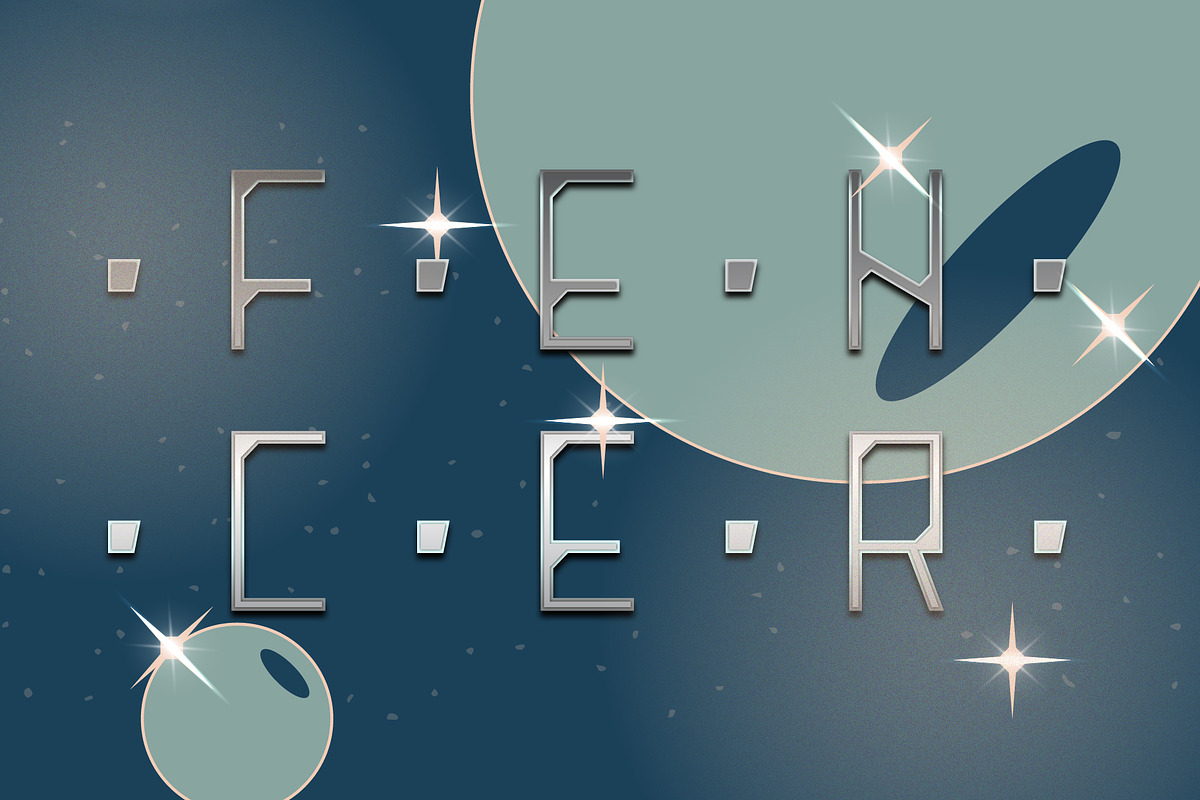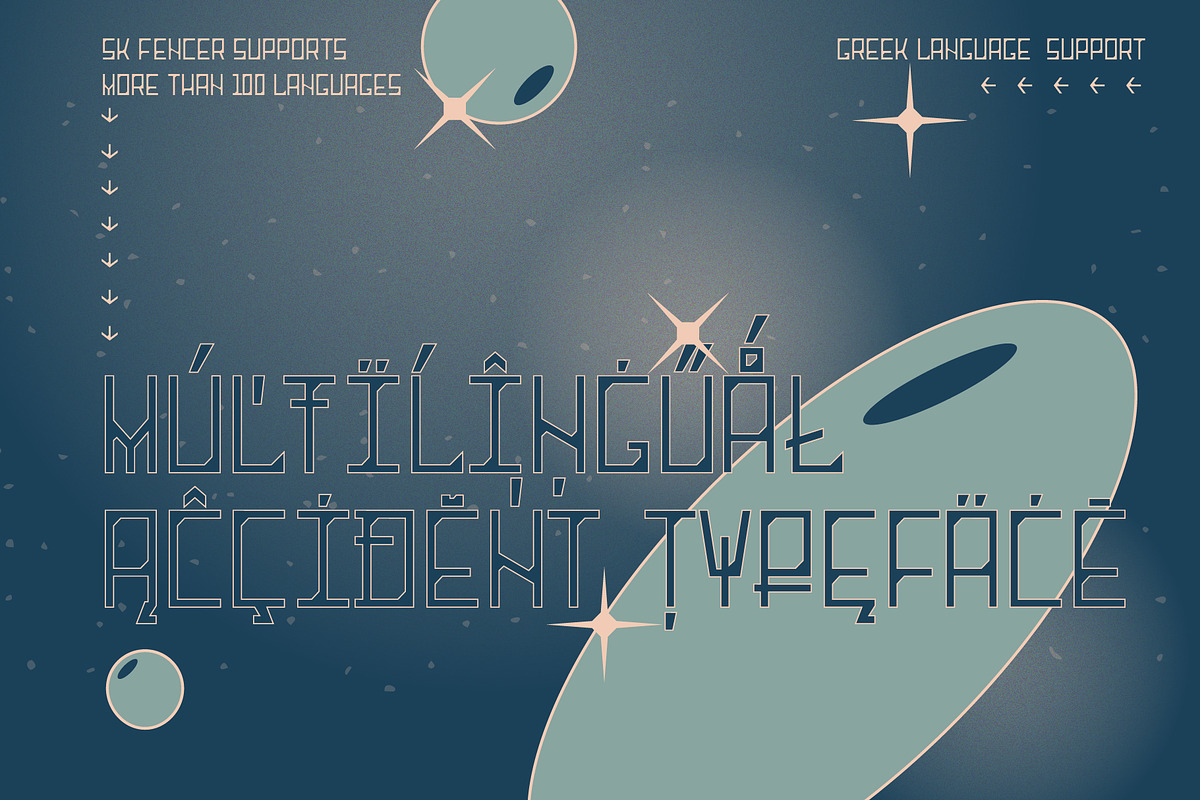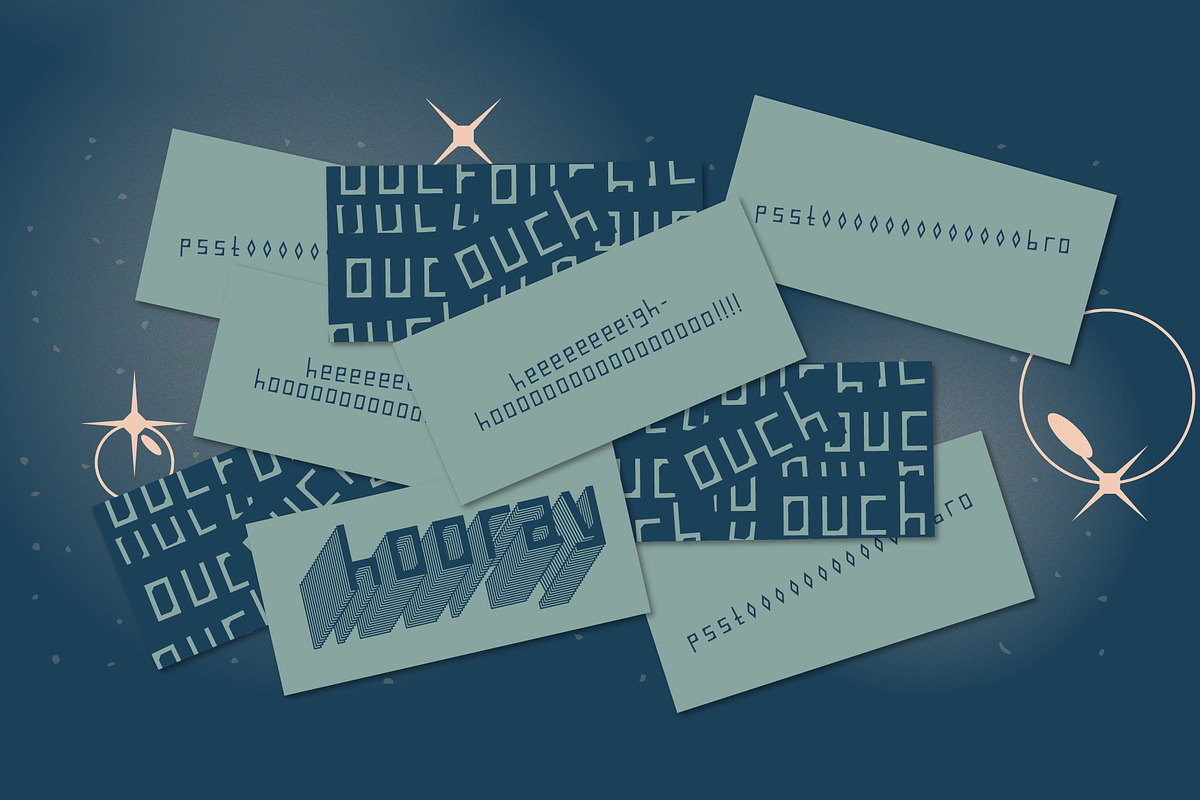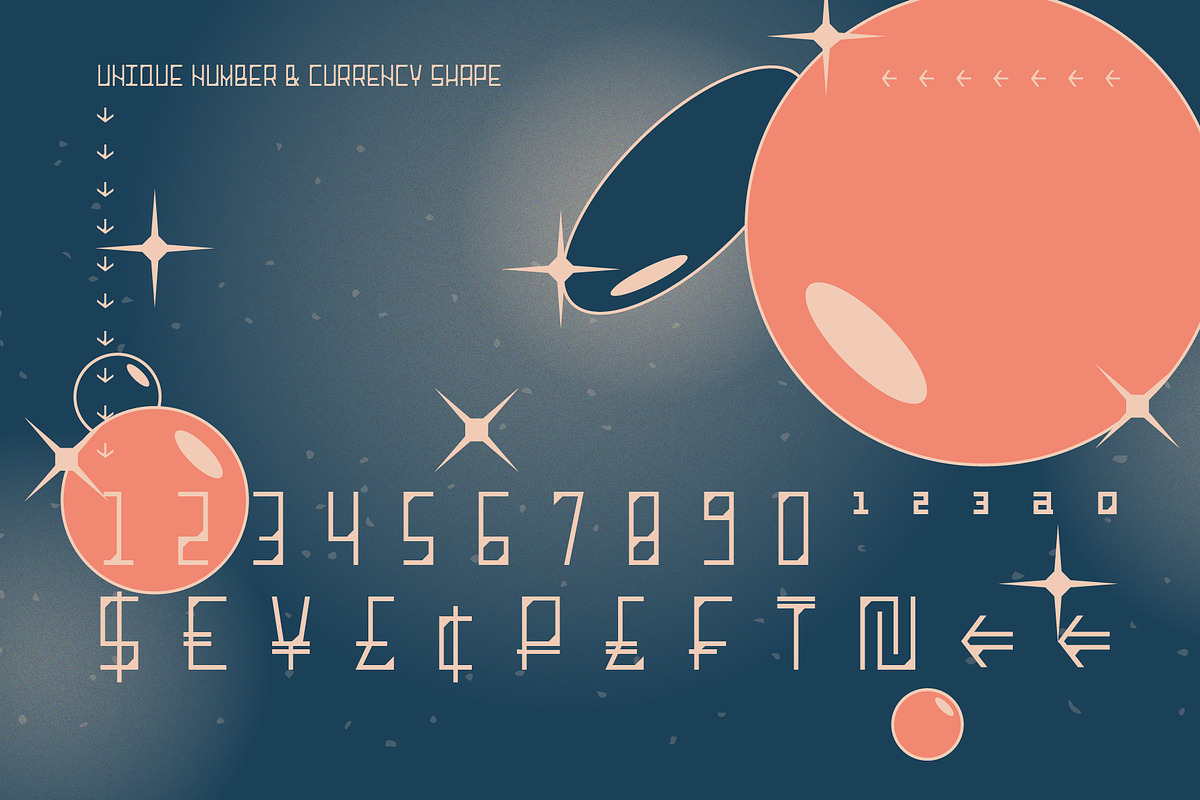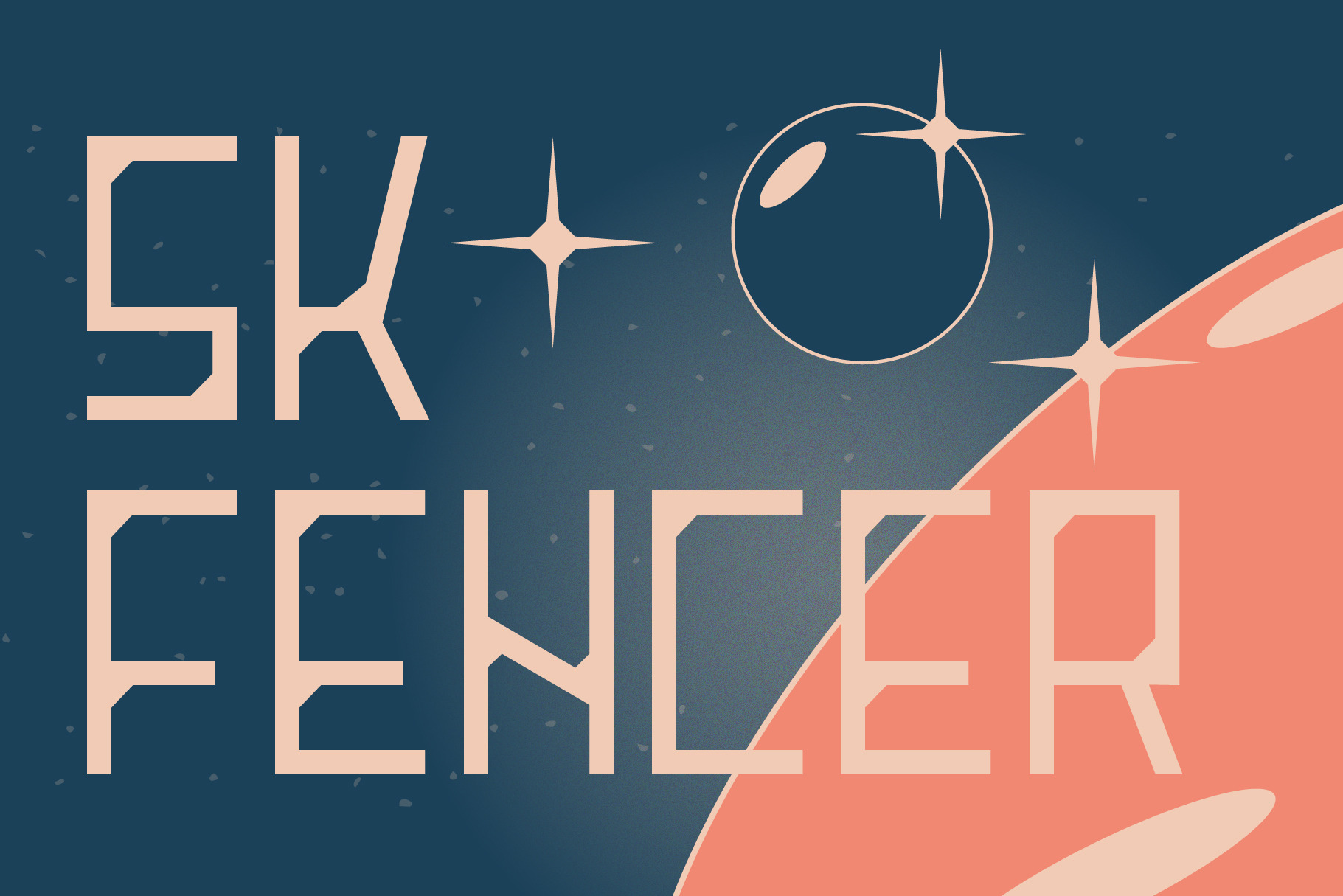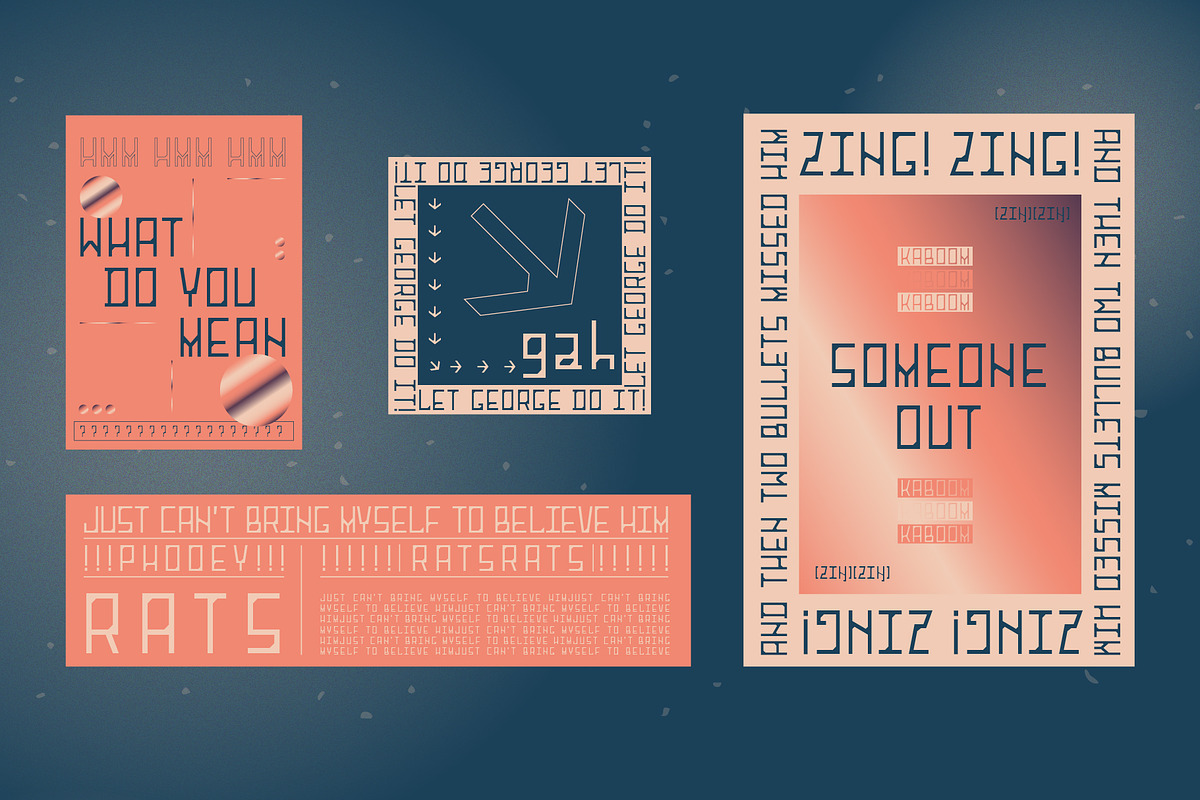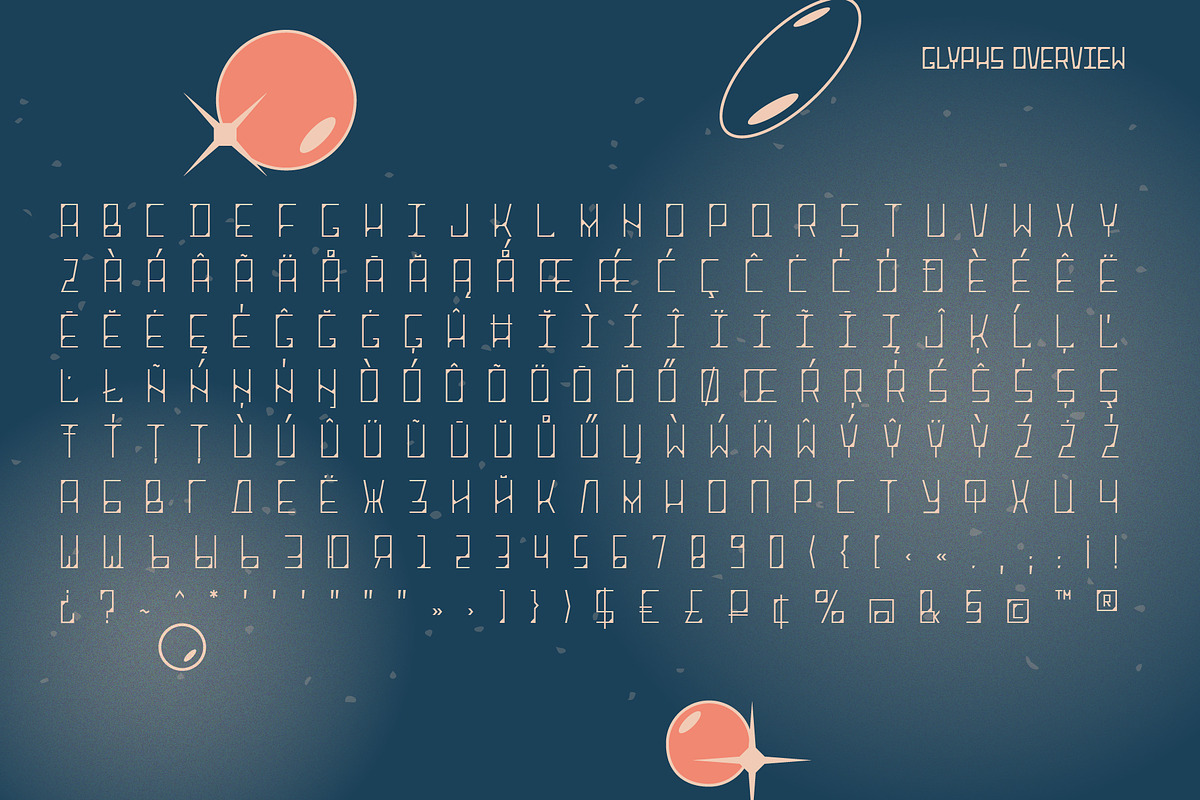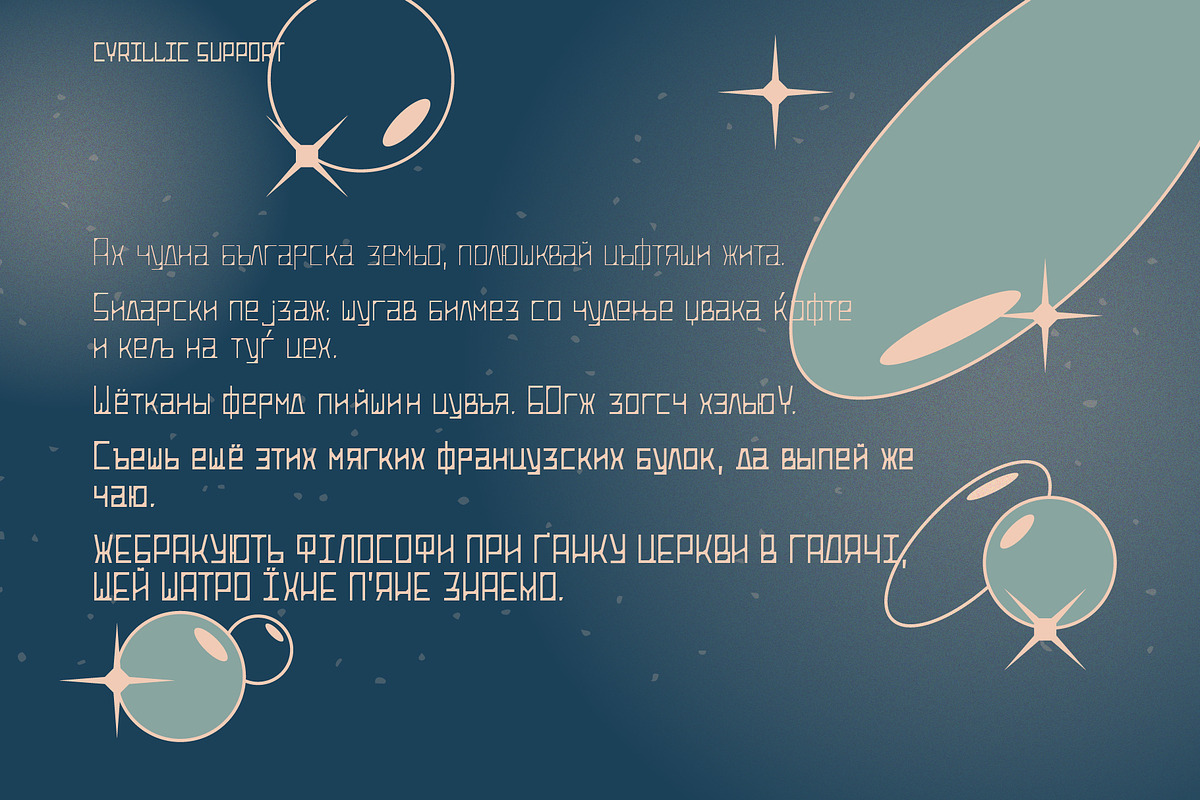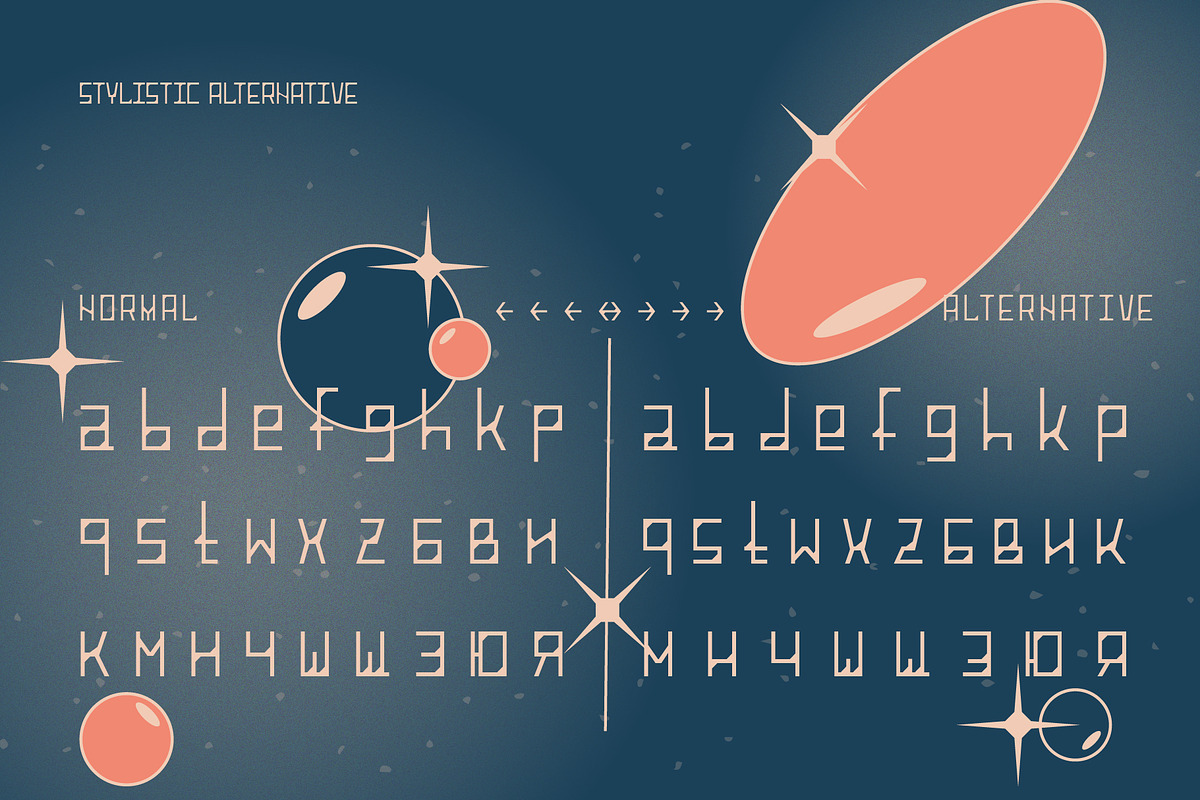
SK Fencer — Modern Display Font
SK Fencer is a typeface inspired by the fine art of fencing. Its light linear features contrast with the angular thicknesses, creating a unique image of the font and influencing its behavior in the line. Using alternative uppercase characters, you can implement a lot of typographic ideas that will decorate your design. A large selection of weights will also be a great help in your work. The SK Fencer typeface is suitable for both headers and small text arrays, and its widest set of glyphs supports both extended Latin, Cyrillic and many other languages. SK Fencer – elegant, practical, dynamic, unusual!